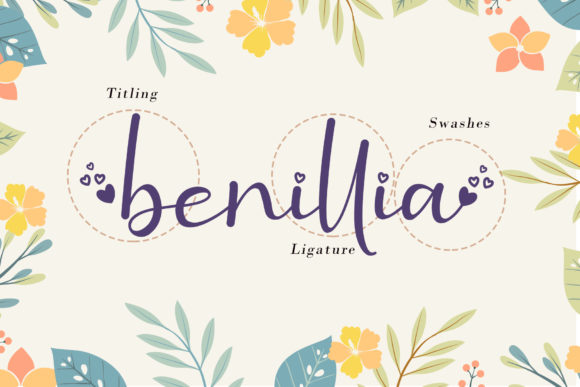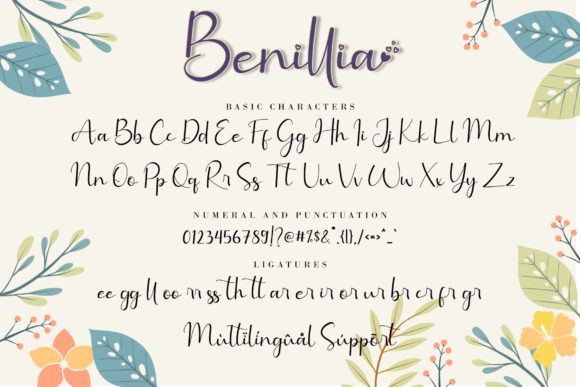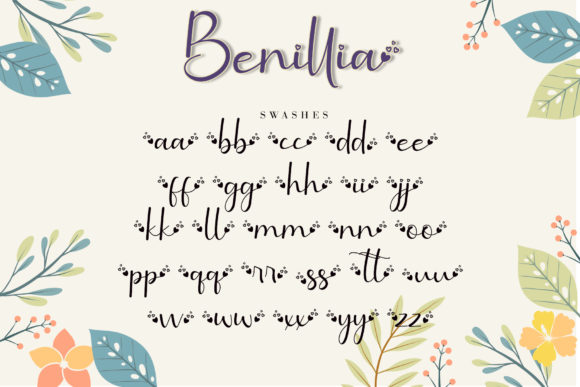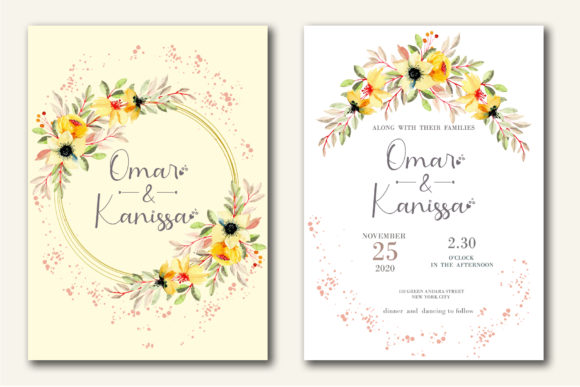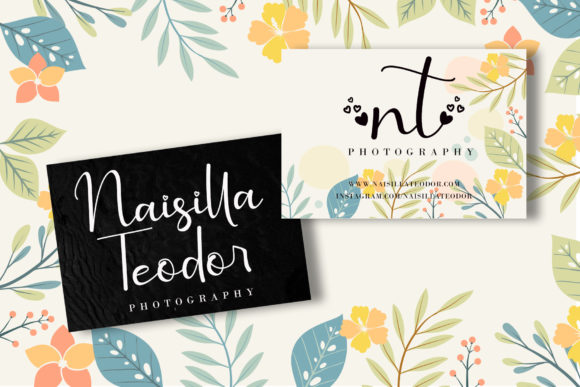
About Benillia Font
Benillia is a delightful and delicate handwritten font that adds a touch of sweetness and elegance to any design. Its graceful and flowing style makes it a perfect choice for various projects, including wedding invitations, thank you cards, quotes, greeting cards, logos, and business cards. Here are some key features that make Benillia stand out:
Sweet and Delicate: The font’s charming and delicate appearance brings a sense of warmth and sweetness to the text, making it ideal for romantic and heartfelt designs.
Varying Baseline: The varying baseline of Benillia adds a playful and dynamic element to the typography, creating a visually interesting and engaging text arrangement.
Smooth Lines: The font’s smooth lines contribute to its graceful and elegant look, ensuring that the text appears refined and polished.
Gorgeous Glyphs and Alternates: Benillia offers a collection of stunning glyphs and alternates, providing designers with a range of customization options to create unique and eye-catching designs.
Versatile Application: This font’s versatility allows it to be used across a wide range of design projects, making it suitable for both digital and print media.
Wedding-Ready: Benillia is particularly well-suited for wedding-related designs, such as invitations, place cards, and thank you notes, as it adds a touch of romance and sophistication.
Whether you’re designing a heartfelt greeting card, a stylish logo, or an elegant wedding invitation, Benillia is sure to leave a lasting impression. Its sweet and delicate nature makes it a wonderful choice for conveying emotions and sentiments in a beautiful and artistic way. Embrace the charm of Benillia and explore the possibilities of creating stunning designs that capture the hearts of your audience!